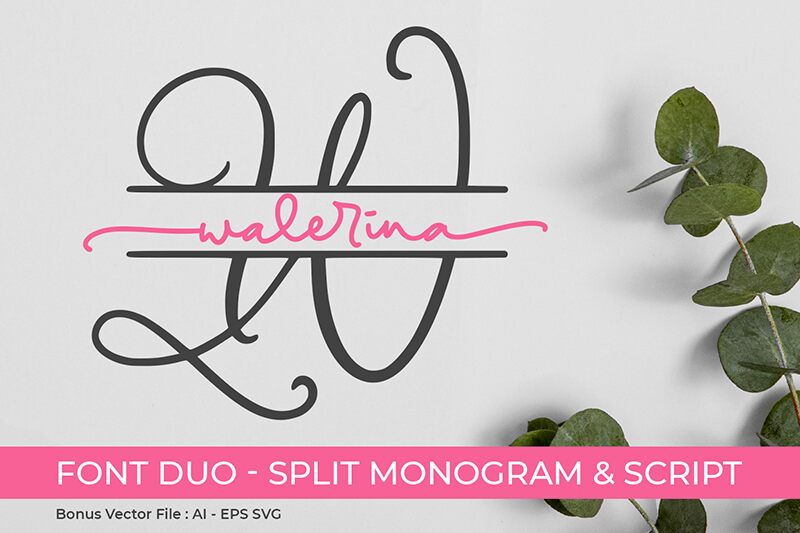
Walerina Monogram is a beautifully crafted font perfect for monogram designs. Its decorative style and light weight make it ideal for projects such as logos, branding, and personal stationery. Whether you're designing for weddings or fashion, Walerina Monogram adds an elegant touch to any project.
WALERINA
- monogram & script -